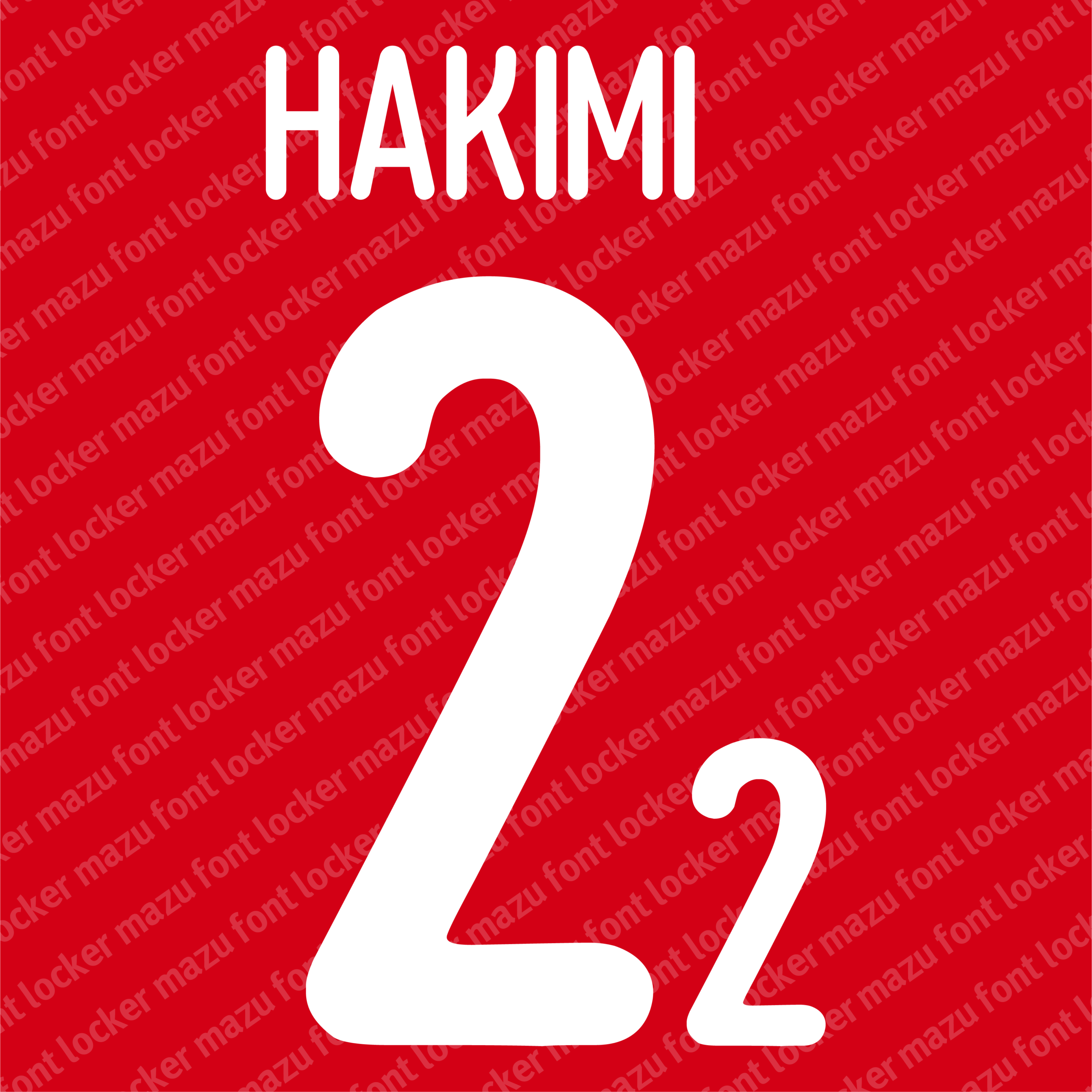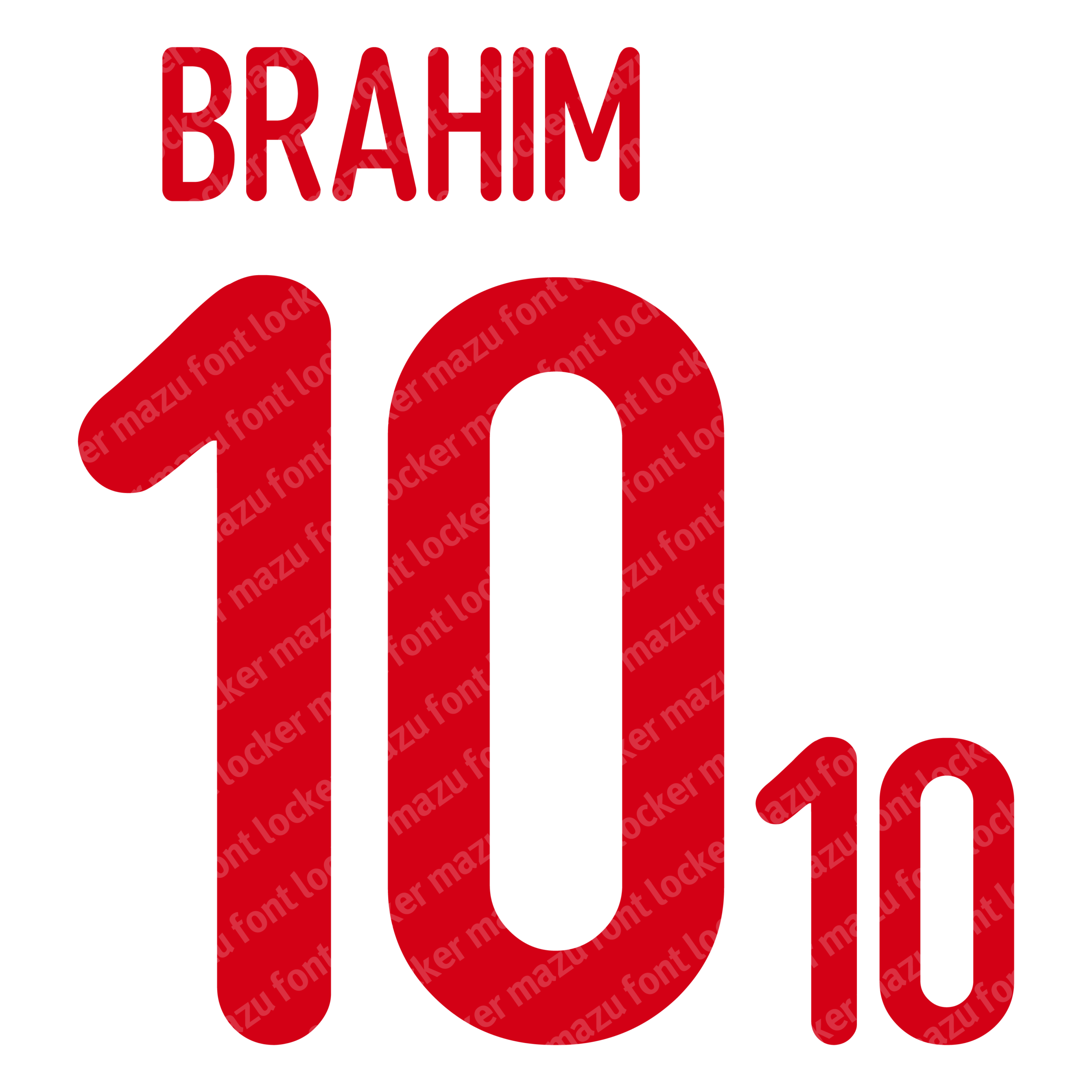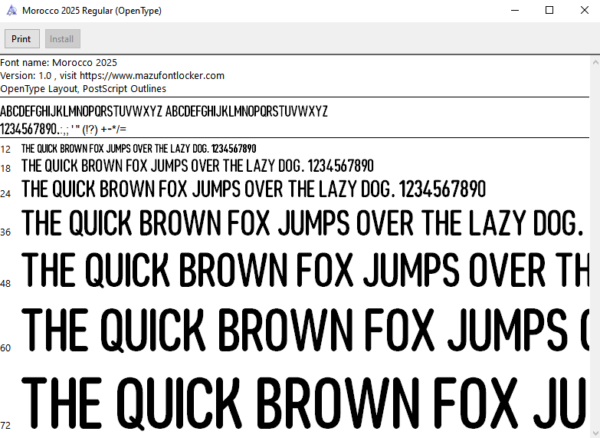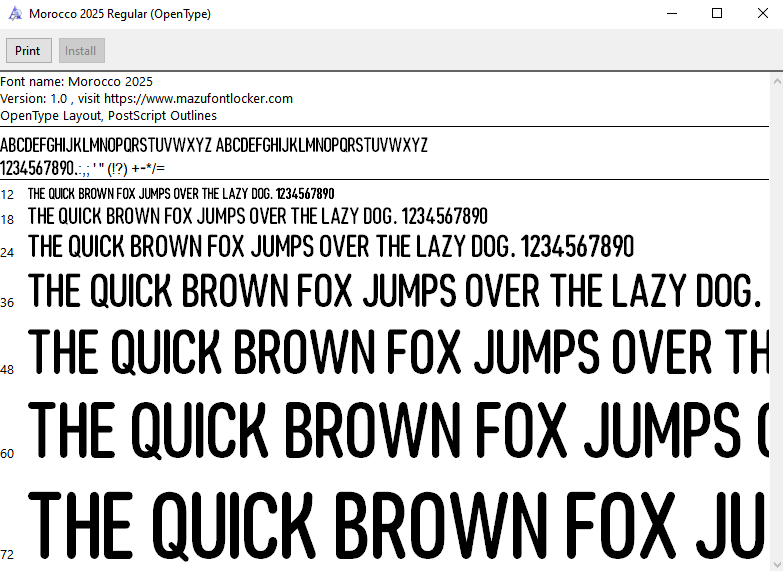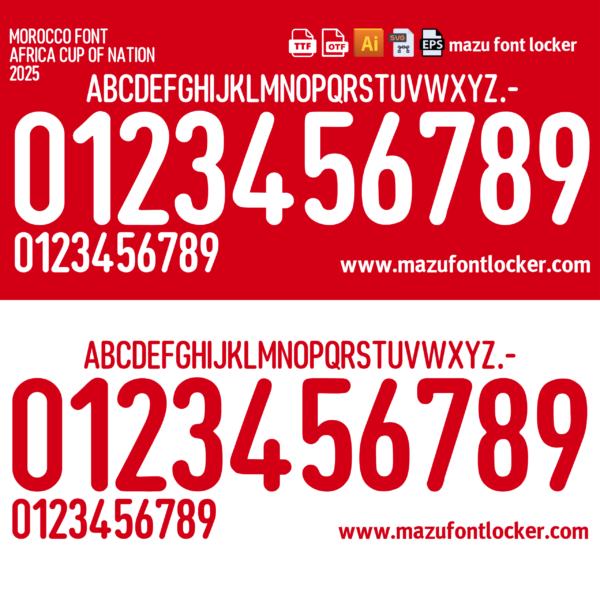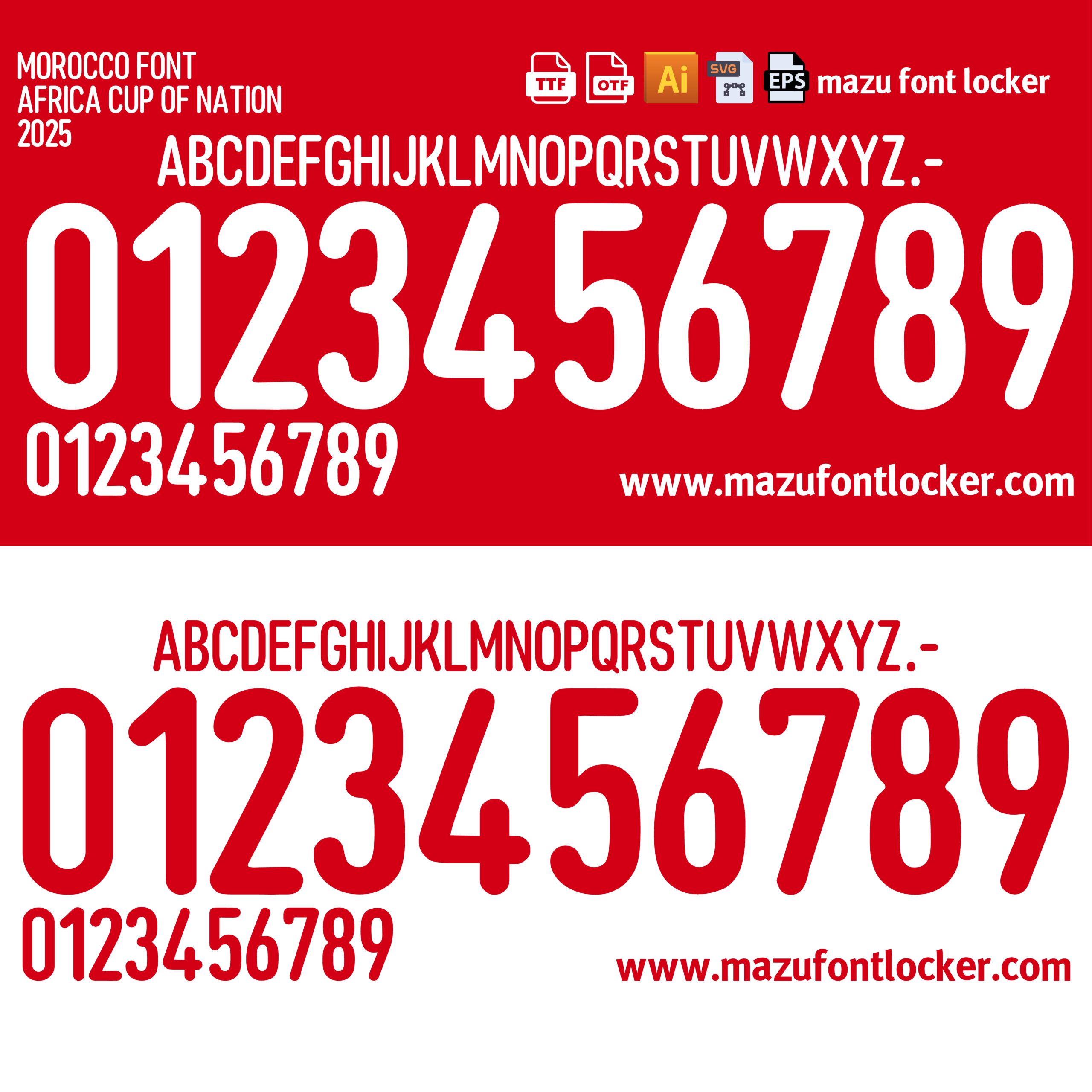
Morocco 2025 Font Vector
Morocco 2025 font, names and numbers, fully editable VECTOR file for customisation.
Complete design with the Morocco 2025 numbering and lettering for the Africa Cup Of Nation 2025 Match .